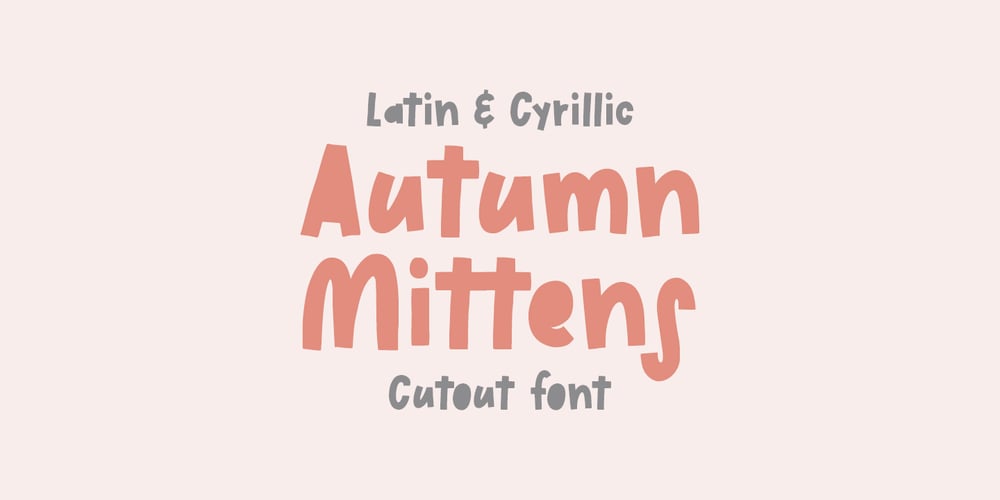
Autumn Mittens Font Family was designed by Dmitrii Chirkov and published by Supfonts. Autumn Mittens contains 1 styles and family package options. Autumn Mittens Latin + Cyrillic—Autumn Mittens is a Cutout handwritten font with Cyrillic support. It is perfect for branding, wedding invitations, menu design, YouTube covers and many moreFont includes a full set of gorgeous uppercase and lowercase letters, numbers, a large selection of punctuation marks & Cyrillic support—Autumn Mittens – это вырезанный рукописный шрифт с поддержкой кириллицы. Он идеально подходит для брендинга, свадебных приглашений, дизайна меню, обложек YouTube и многого другогоШрифт включает в себя полный набор великолепных прописных и строчных букв, цифр, большой выбор знаков препинания и поддерживает кириллицу—Test it out below to see how it could look for your next project!Includes:- Regular Script- Latin languages support- Cyrillic languages support- Uppercase and lowercase- Numbers and punctuation—Check out my blog:- https://www.instagram.com/superdizigner- https://pinterest.com/dmitriychirkov7